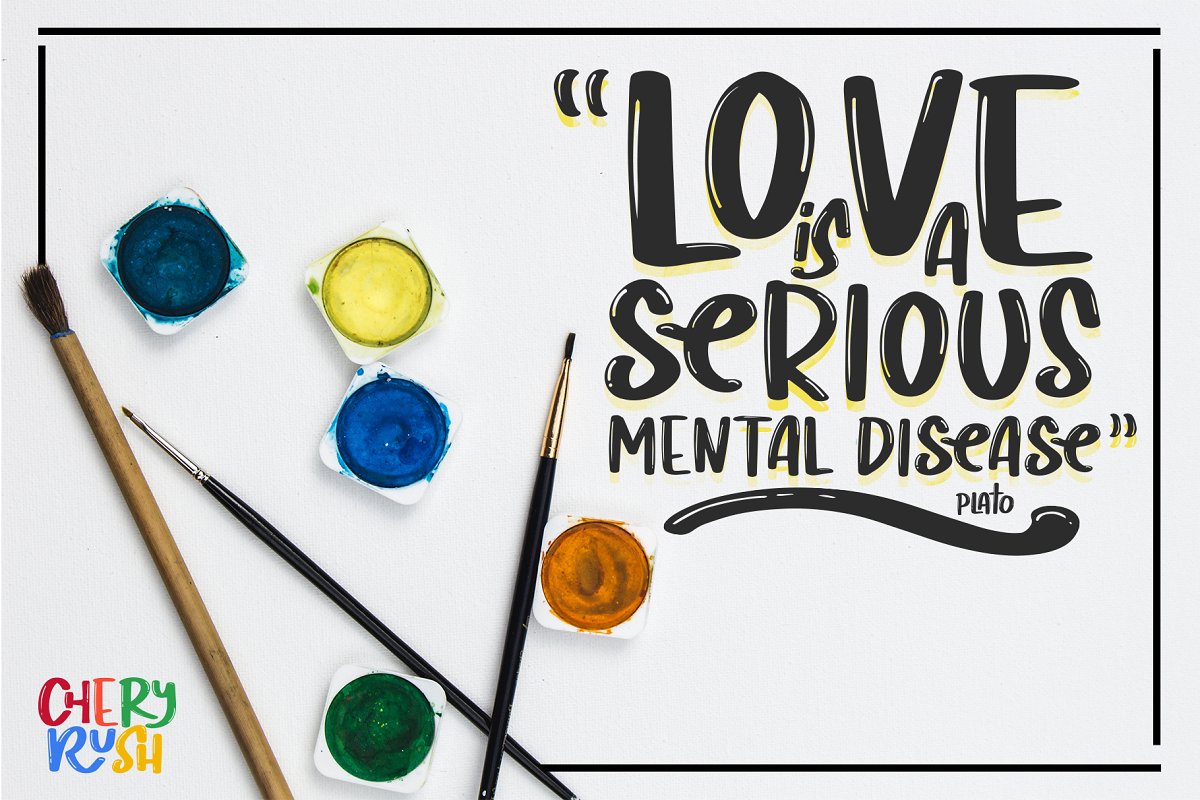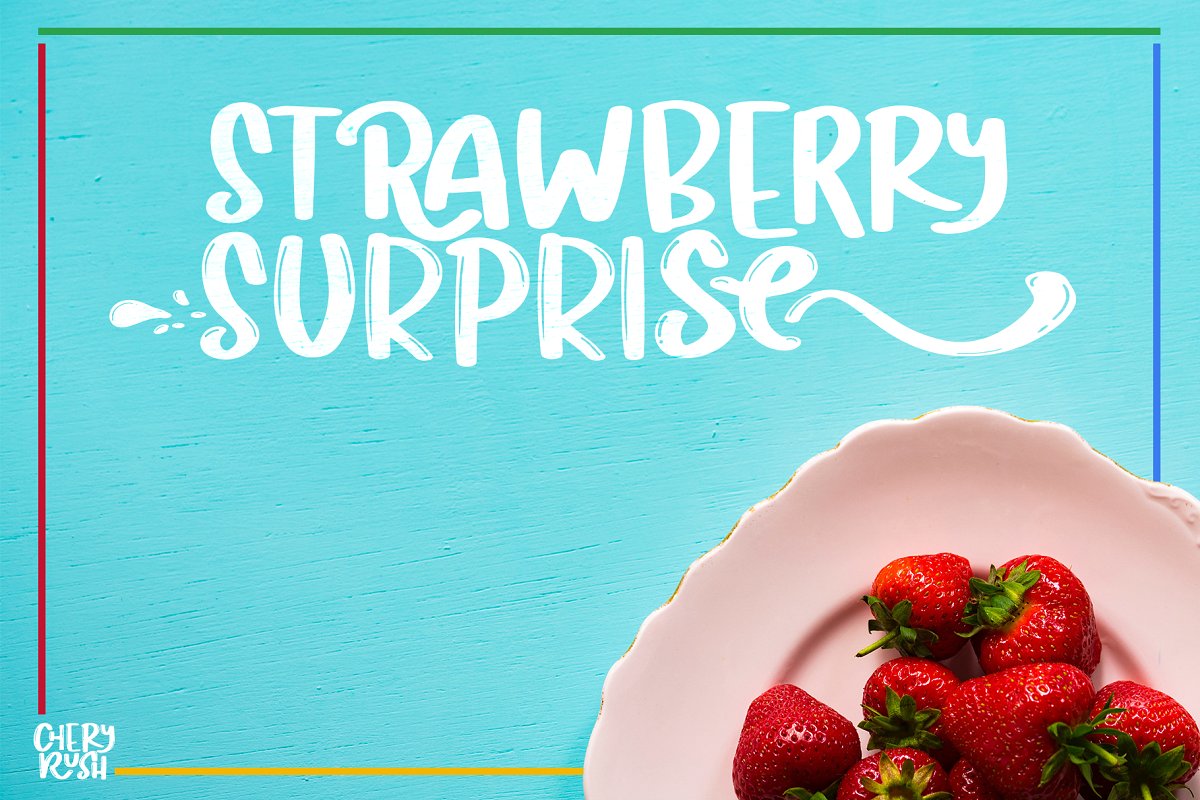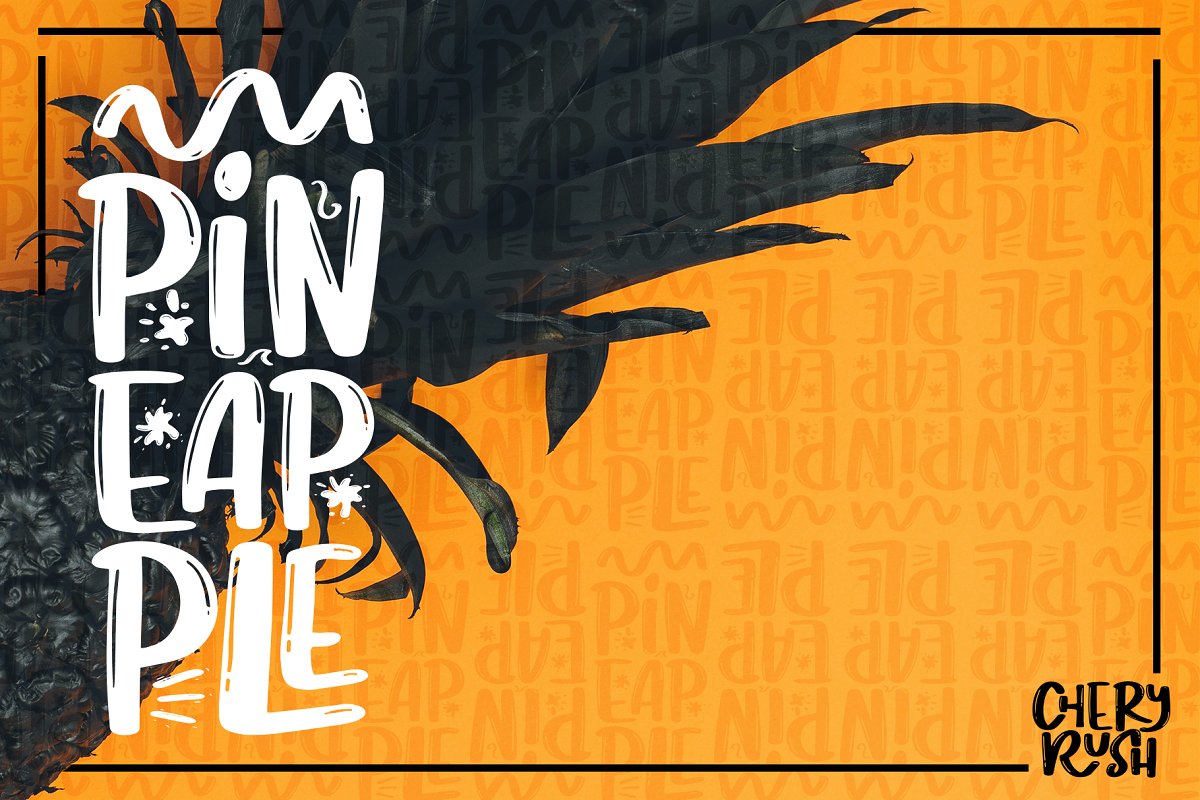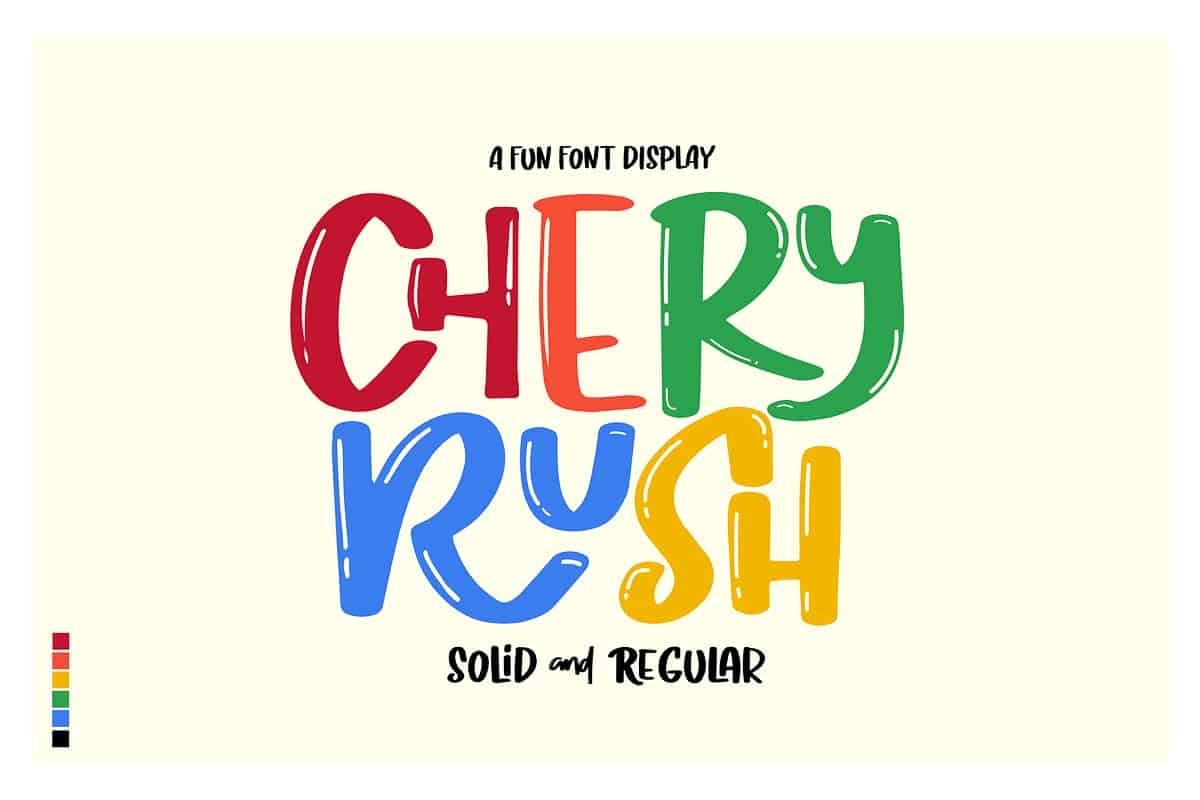
Chery Rush Display Font
Hi Ladies and Gentleman!! Introducing Chery Rush Font. Chery Rush Font designed and shared by D&K_project. CHERY RUSH It’s fun, it’s cute, it’s smooth, and it’s mighty splash. A mixed-case font (Uppercase and lowercase) with lots of combination possibilities, make greats fun display! its good to make a logotype, sticker, fun kids sign, and other lettering project.